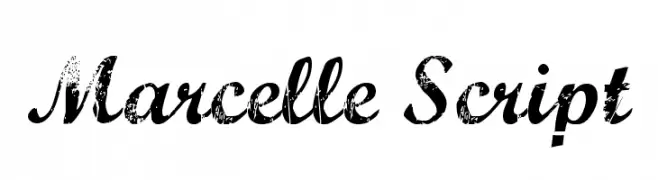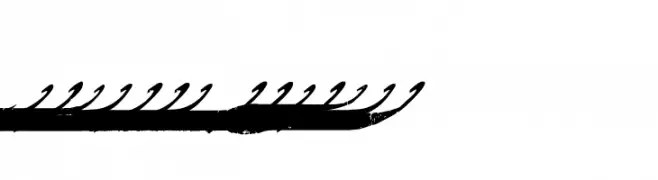
Elegant, sweeping swashes with a bold, calligraphic style.
A distressed, vintage script font with a textured, cursive style.
A dynamic, italicized font with a handwritten, expressive style.